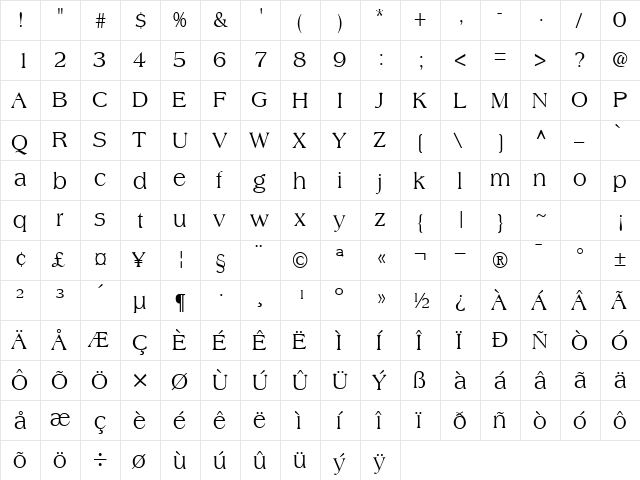
AmalcanCond Normal
Design Context for AmalcanCond Typeface
AmalcanCond takes a measured approach to typography — its balanced proportions and neutral character make it a reliable workhorse for both digital and print work. The condensed width makes it efficient for tight spaces without sacrificing legibility.